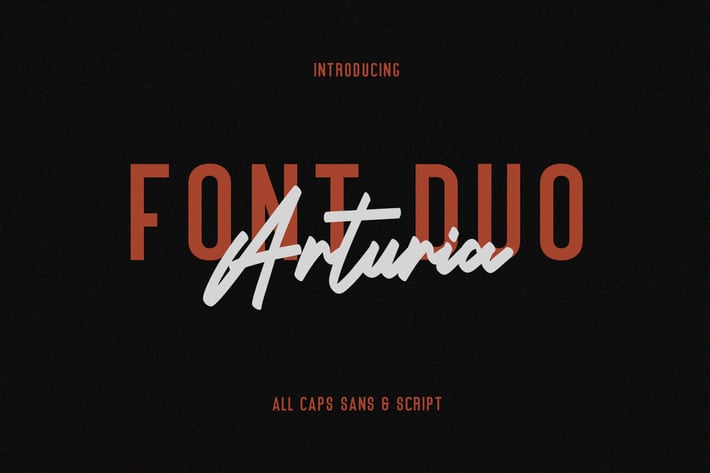
Arturia Script Sans Font Duo
Give your designs an authentic handcrafted feel. Arturia Font is perfectly suited to signature, stationery, logo, typography quotes, magazine or book cover, website header, clothing, branding, packaging design and more.